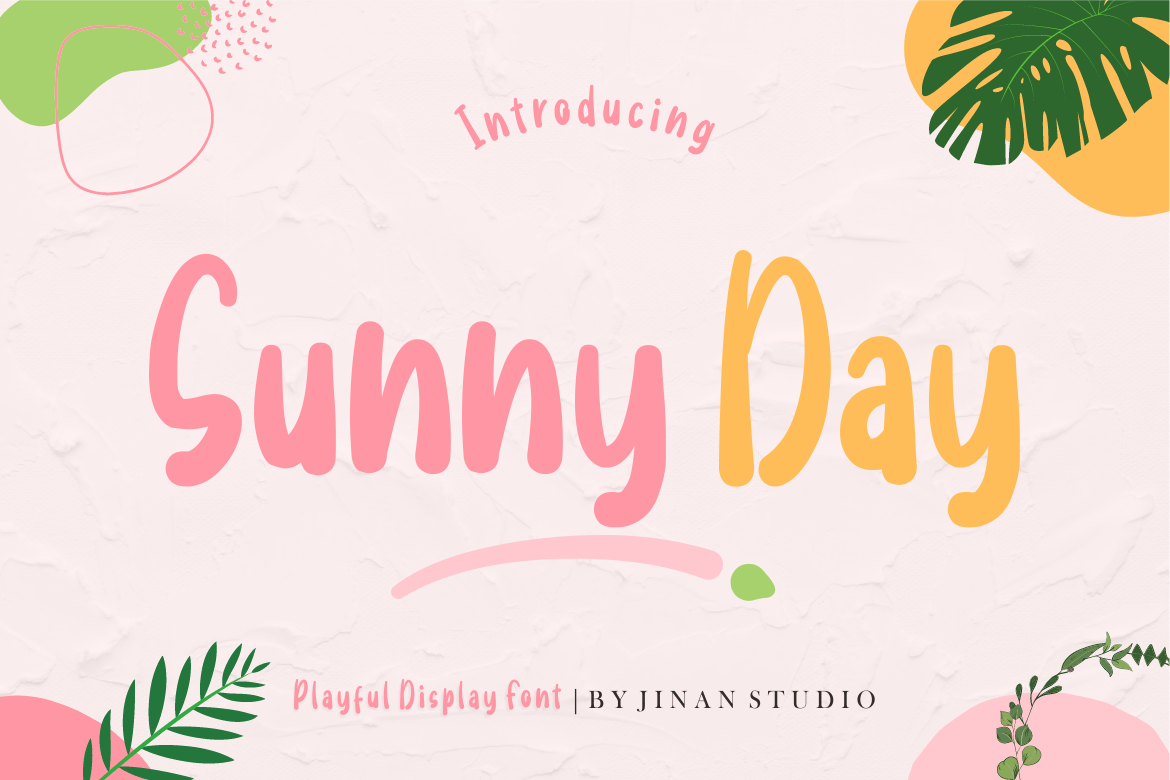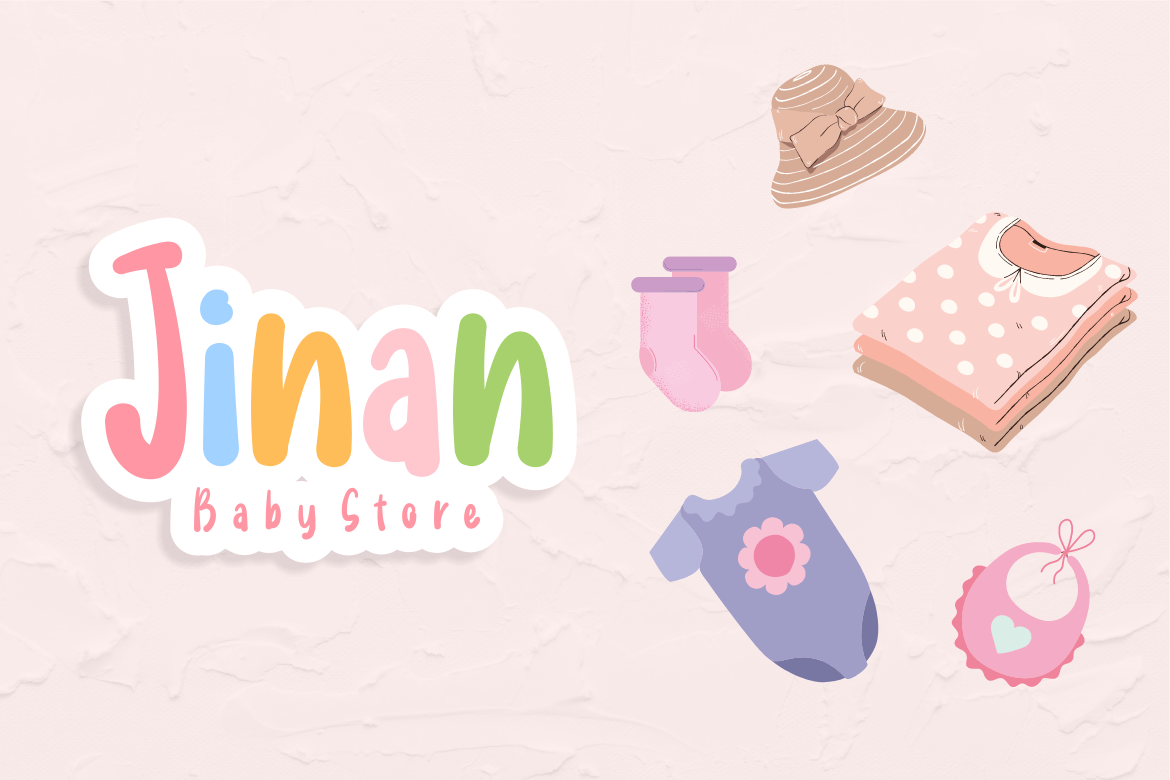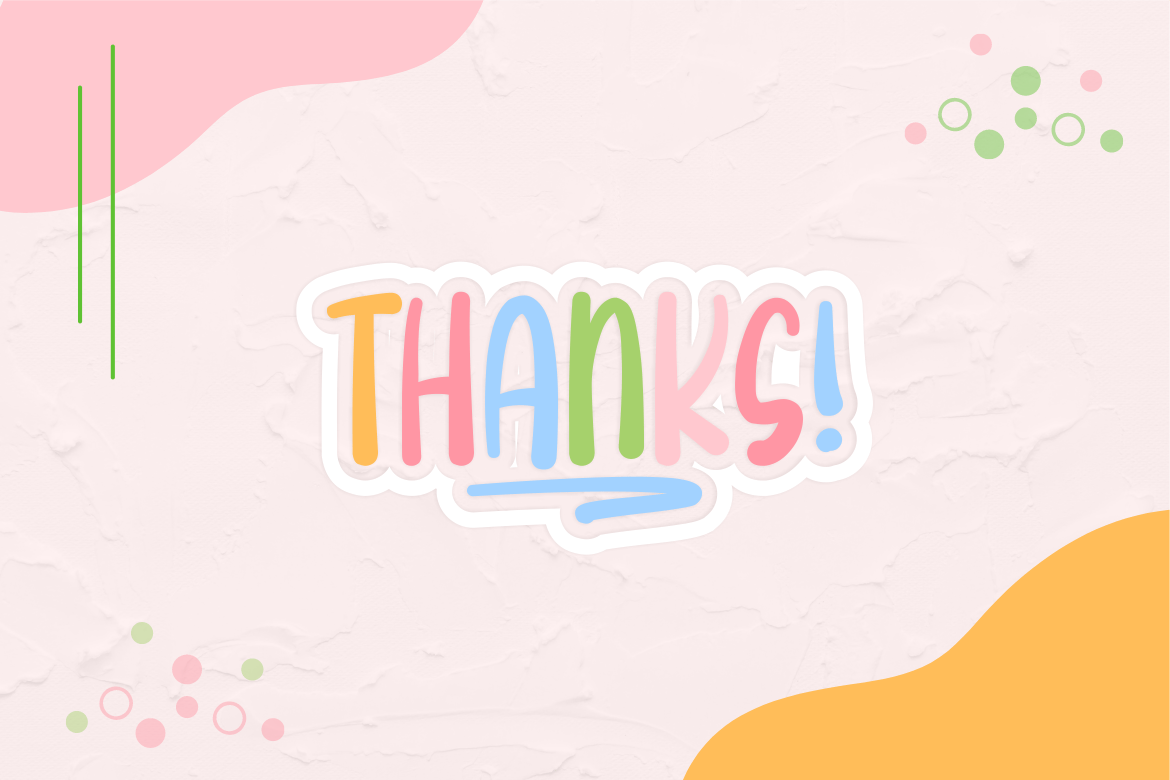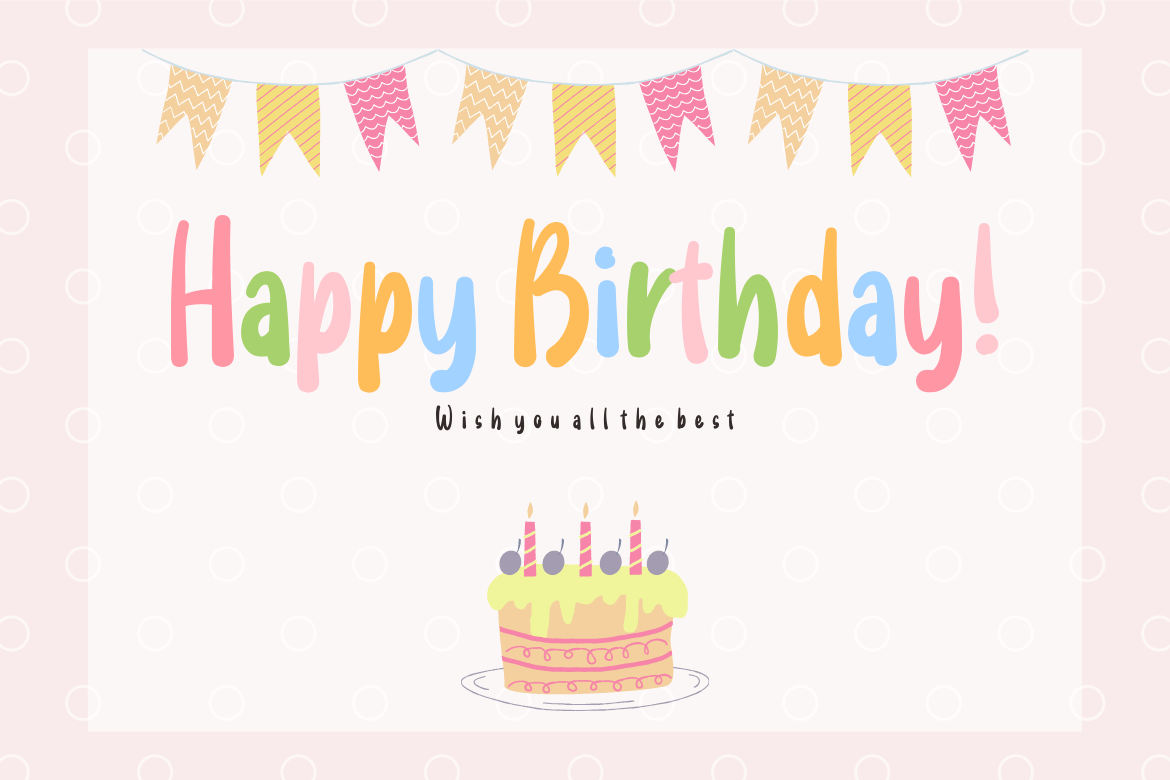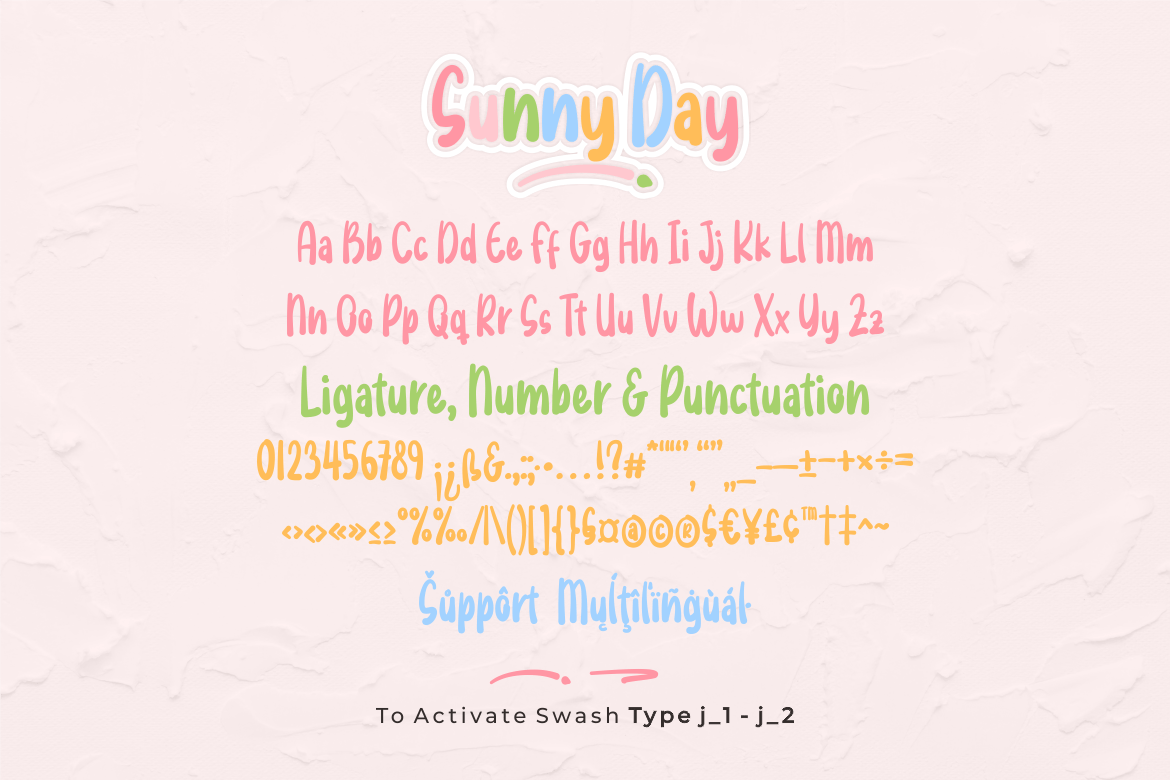
Sunny Day A Display Font
Introducing, Sunny Day is a playful display font suitable for your design project needs, such as; birthday themes, Valentine’s themes, social media posts, quotes, overlays on images, tagline logos, posters, print needs, website banners, and more.
- A set of uppercase and lowercase glyphs
- Number, symbol, and punctuation
- Some Swashes
Type j_1 and j_2 to features swash